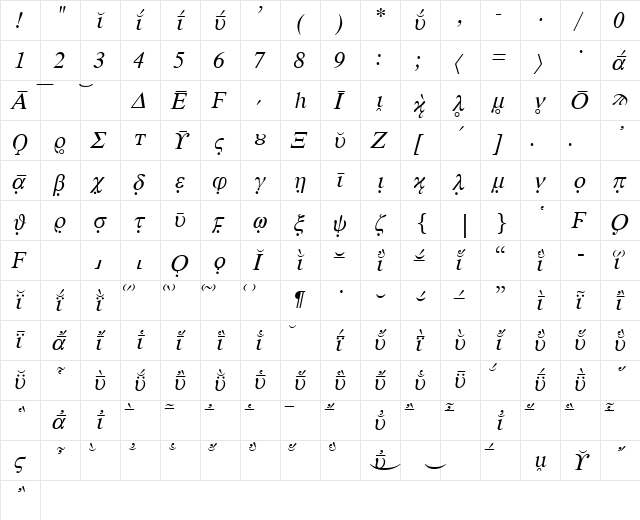
HellenicaExtras Italic
Design Context for HellenicaExtras Typeface
HellenicaExtras is a composed and adaptable typeface that performs quietly and consistently across a wide range of design contexts. The dynamic lean of this cut emphasises speed and emphasis in any layout.
Pro Tip: Try HellenicaExtras for annotation and caption copy alongside an upright companion — the contrast in angle creates a dynamic but ordered typographic system.